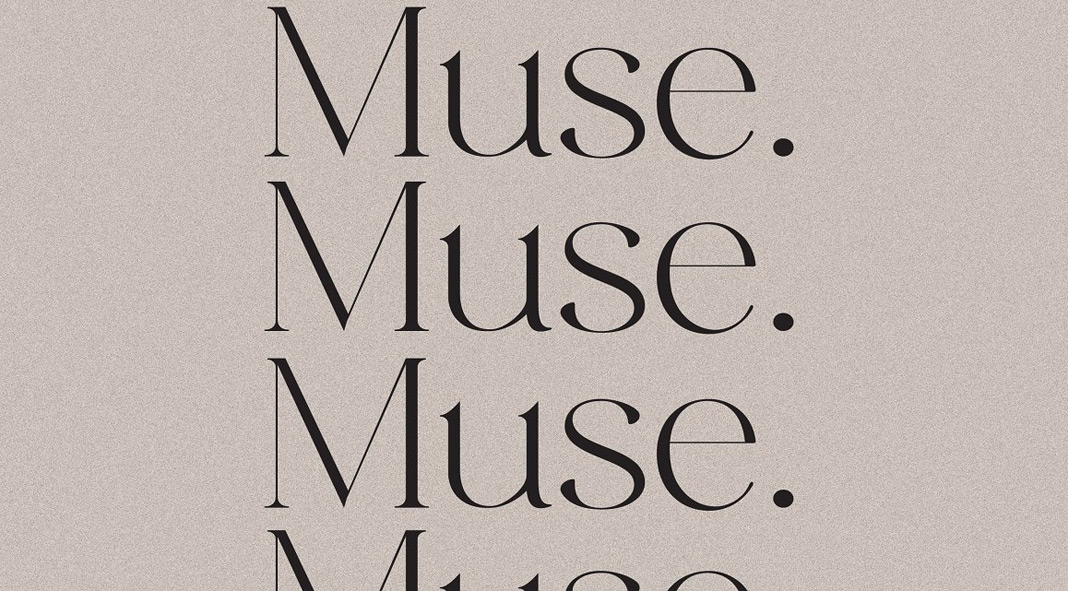
Muse, a chic display serif font for fashion-themed projects and other elegant designs.
Designed by Max Duy T. and published in 2020 by Harmonais Visual, the Muse font has been created especially for the use in fashion-themed projects as well as elegant lifestyle designs and branding including logos and magazine headlines. The beautiful typeface comes with a wide range of standard ligatures. In addition, it is equipped with six free logo templates. To learn more about this elegant typeface, just click on one of the following links.